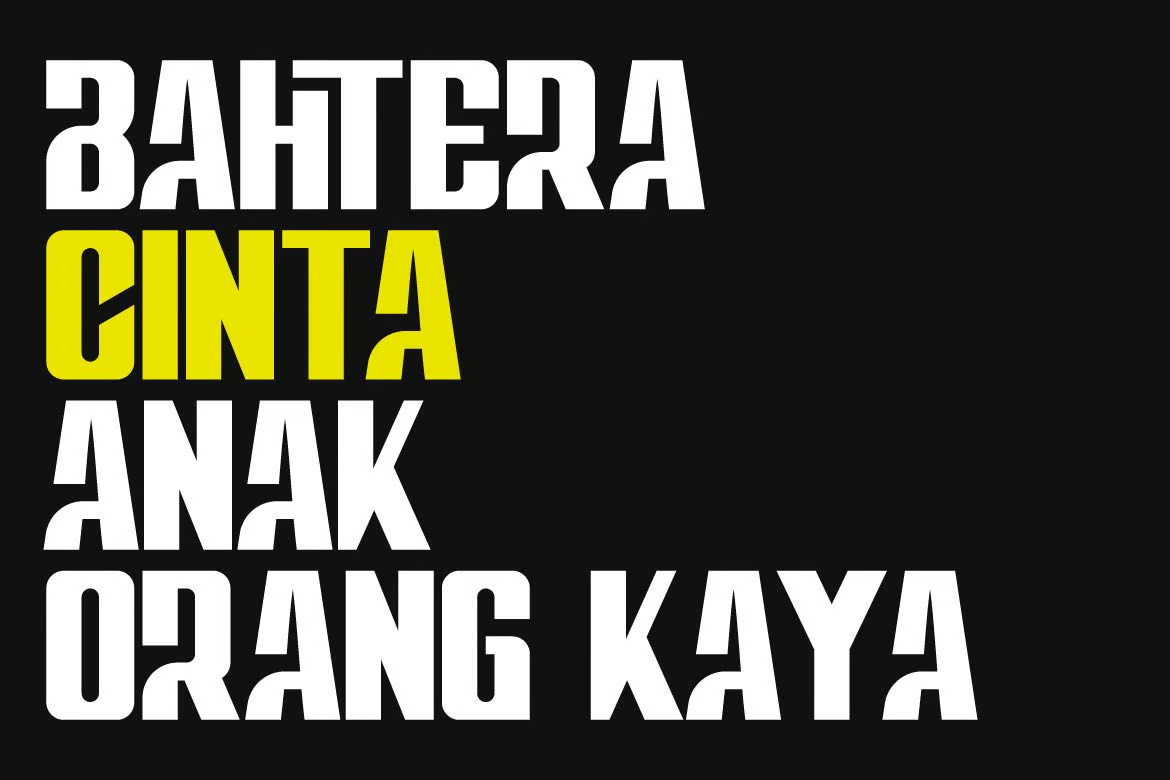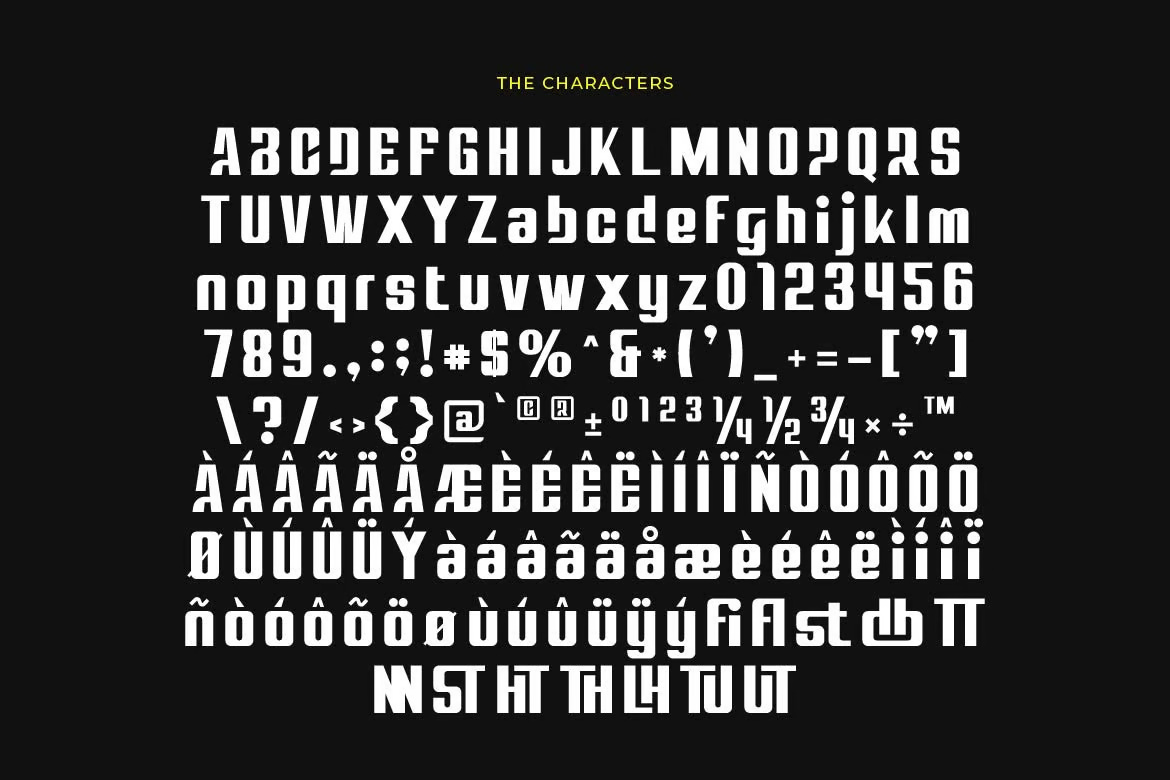
Bigsock is tall, tight and heavy. Iwan Alwan of Artiveko Studio gave the letters small angled notches, so the B and S look slightly cut with a knife. In yellow over dark monstera leaves, the title is easy to read from across a room.
The stacked lines “Bahtera Cinta Anak Orang Kaya”, with one word in yellow, show how it is meant to be used: big, packed and loud. The character set includes ligatures, accented letters and fractions. The family has Regular and Italic, and the free download has four OTF and WOFF files.
Best uses for Bigsock
- Movie and event posters
- Sports team graphics
- Magazine headlines
- YouTube thumbnails
- Streetwear
Pair it with a clean, readable sans like Roboto or Barlow. For a matching condensed face at smaller sizes, try Barlow Condensed.
Bigsock Condensed Display Sans-Serif Font